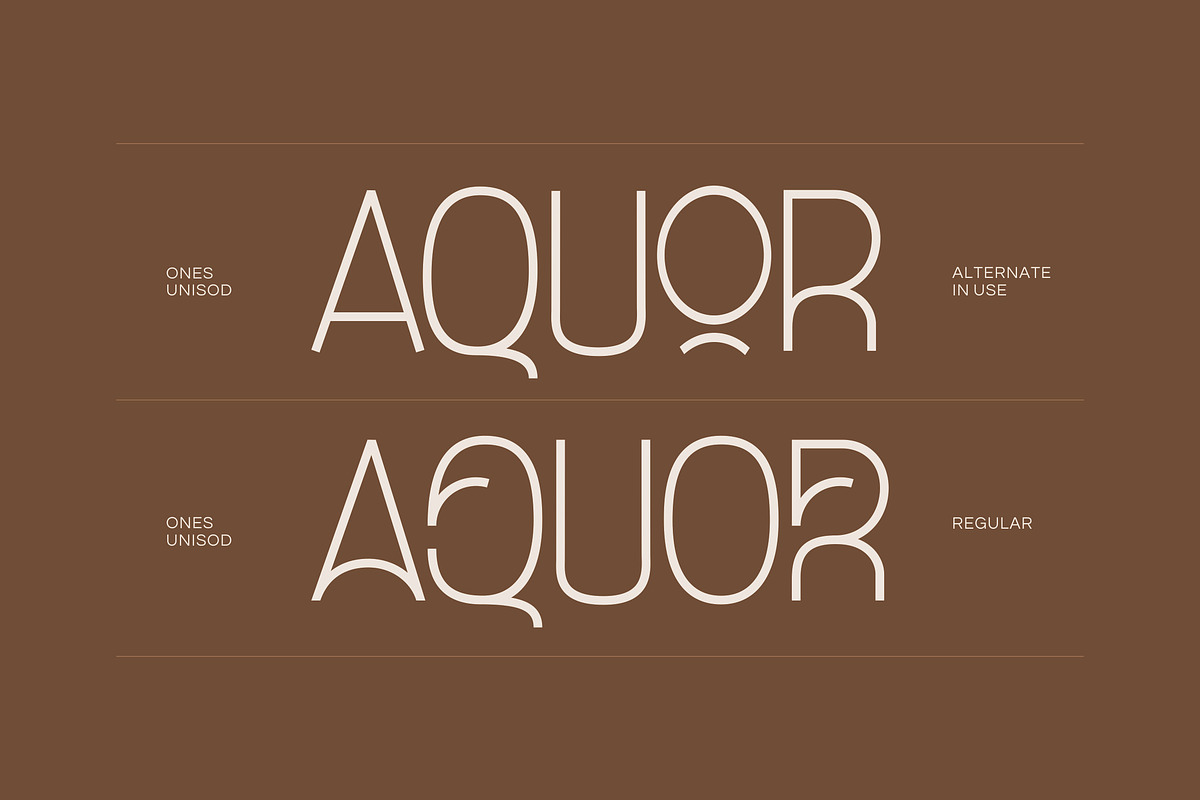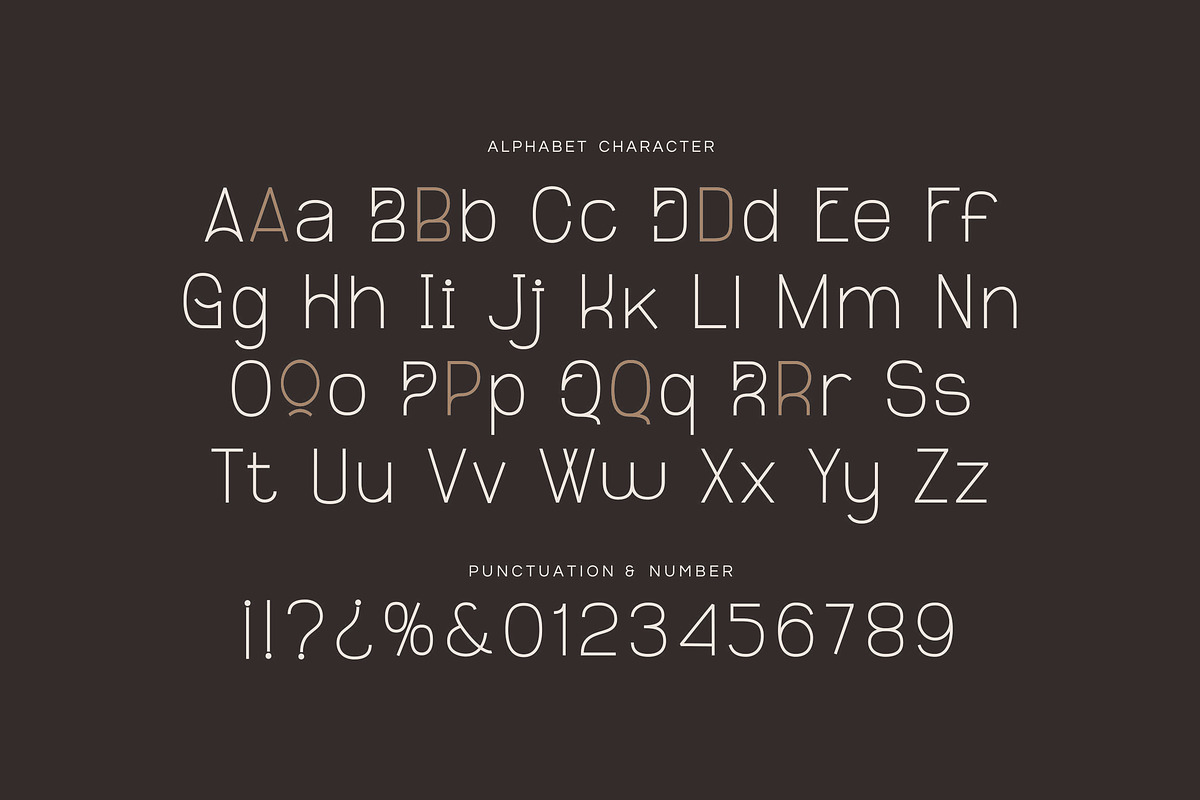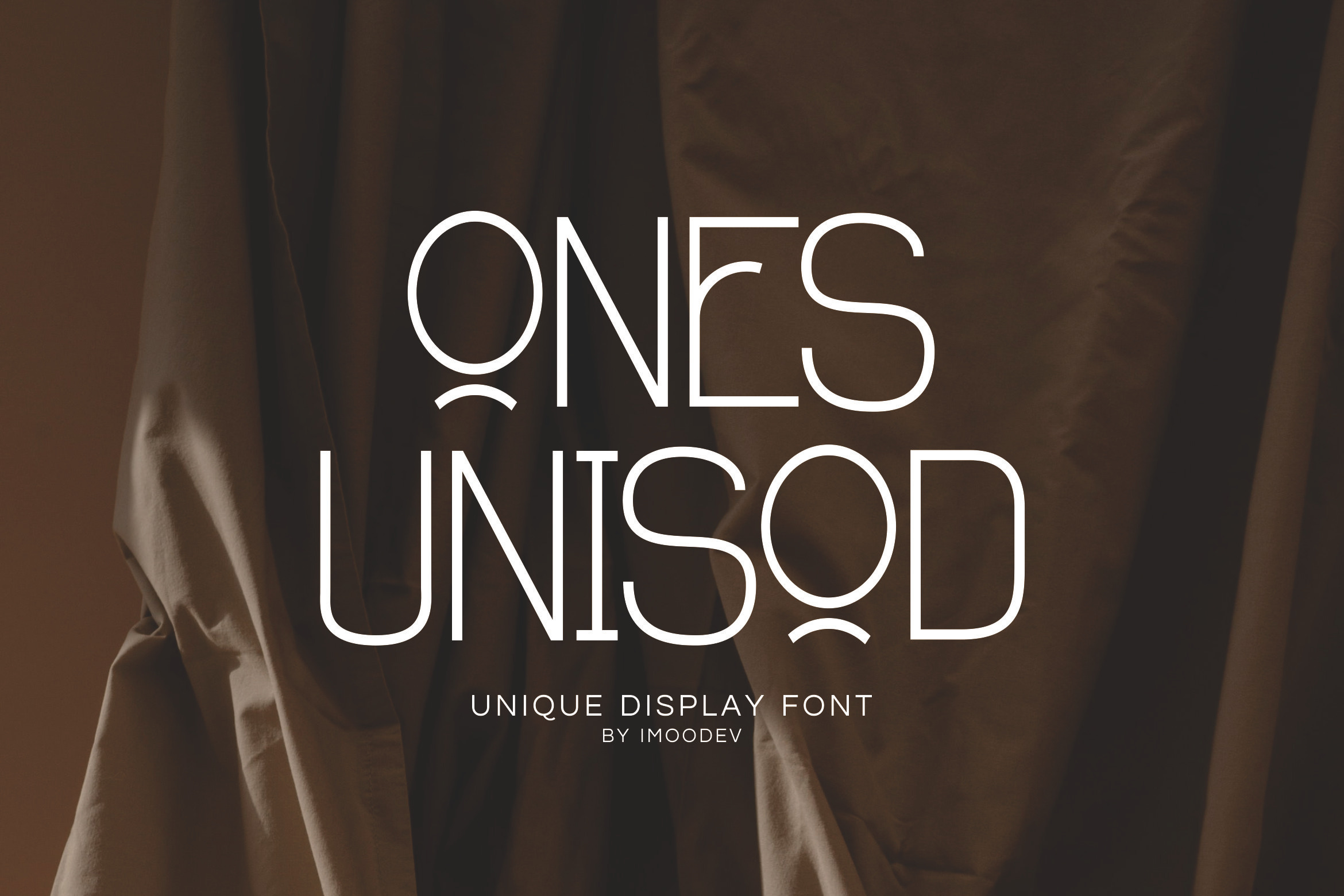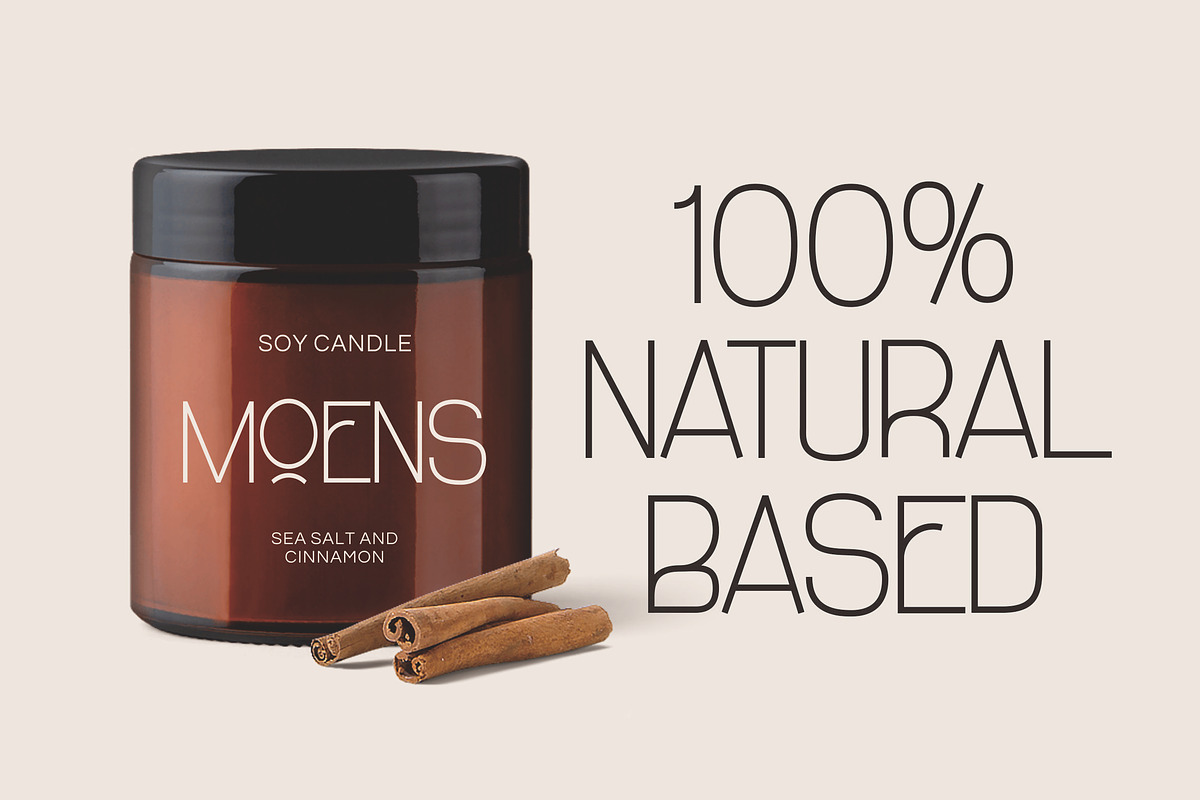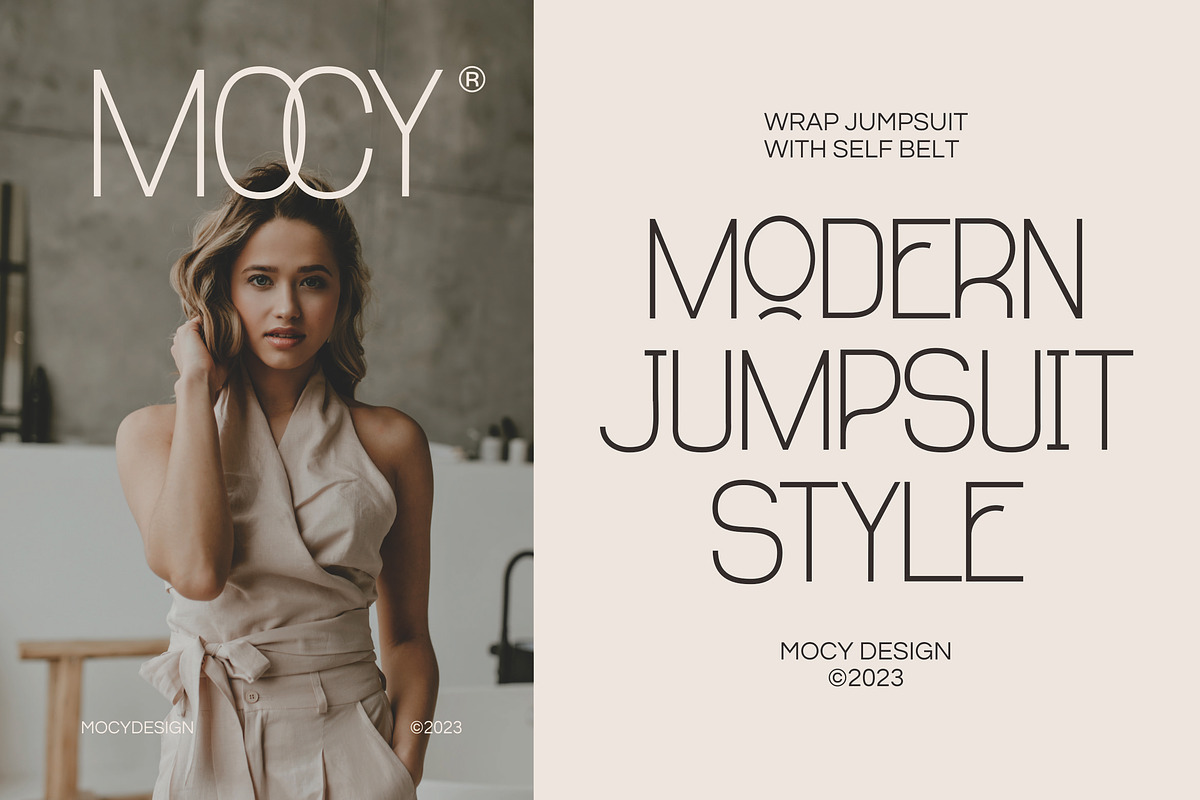
Ones Unisod - Thin Display Typeface
Embrace the power of subtlety with Ones Unisod, a display font that celebrates the beauty of minimalist design through its exquisitely thin and consistent linework. This font is the embodiment of modern grace, designed for creators who understand that true impact often lies in refined detail.
Its defining feature is its slender, monoline construction. Every character is crafted with a single, fine line weight, creating a look that is both delicate and confident. This lightweight nature gives your text an incredible sense of space and airiness, allowing your designs to feel clean, open, and uncluttered.
This refined thinness beautifully accentuates the font's unique geometric style. The result is a typeface that feels both architectural and ethereal, making a sophisticated statement without ever raising its voice.
Ideal for editorial design, fashion branding, packaging, posters, and lifestyle products. Whether used in bold headlines, logo marks, or product labels, this font communicates exclusivity and refinement.
- Uppercase and Lowecase Characters.
- Numerals and Punctuations.
- Alternates and Ligatures.